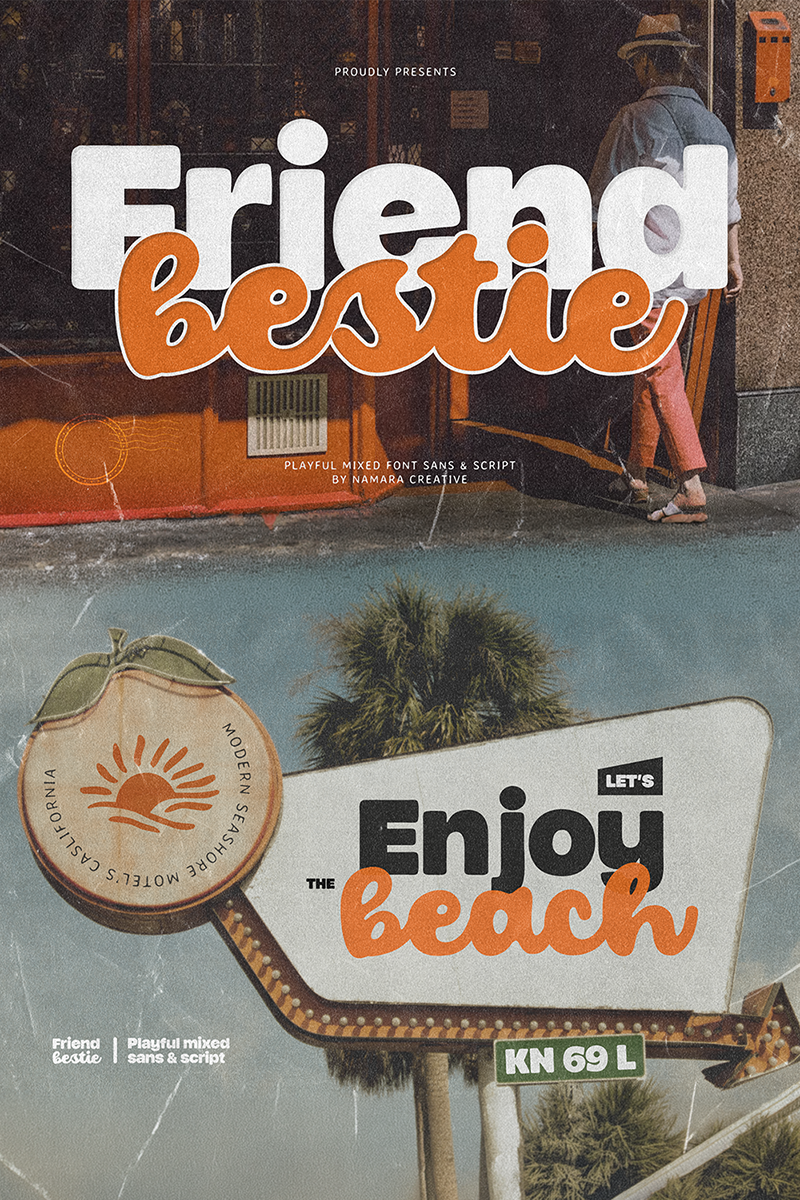
Friend Bestie
Font familyFriend Bestie
CreatorNamara Creative
Meet Friend Bestie — a playful mixed-style font that pairs a chunky rounded sans-serif with a lively flowing script, all in one cohesive font family. It’s the kind of typeface that makes your design feel like it was always meant to look exactly that good. Features : - Full set of standard characters and punctuations. - Alternates, ligatures, swashes and multilingual support. - PUA Encoded | no special software needed to access extra characters. Notes : - This Font is PERSONAL USE ONLY, NO COMMERCIAL USE ALLOWED! - For Full Version and COMMERCIAL USE, please purchase license here https://onedsgn.com/product/friend-bestie-playful-mixed-font/